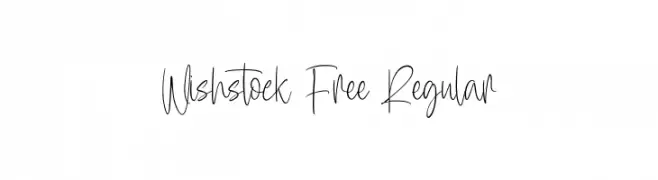
Expressive, tall handwritten script with fluid, connected strokes.
Elegant, casual handwritten script with connected, flowing strokes.
A modern, handwritten script font with a casual, elegant style.
A whimsical, handwritten script with tall, narrow, and playful strokes.